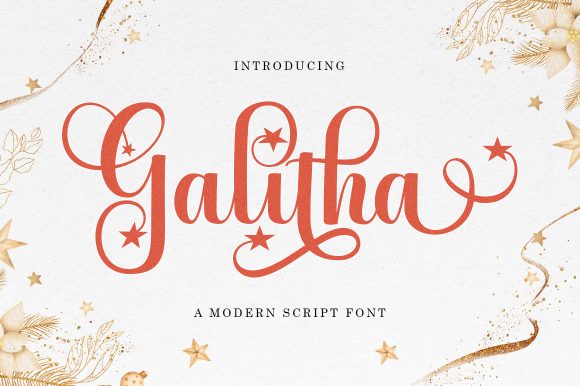
Introducing Galitha Font, the ultimate choice for script enthusiasts seeking a unique and captivating typeface. Created by the talented team at LetterFreshStudio, this adorable quirky handwritten font is guaranteed to infuse your designs with an irresistible touch of joy.
With Galitha Font, your creativity knows no bounds. Its playful style will effortlessly breathe life into your projects, making them stand out from the crowd. Whether you're designing beautiful stationary art, eye-catching social media posts, or any other creative endeavor, Galitha Font is the perfect companion to bring your vision to life.
Immerse yourself in the whimsical world of Galitha Font and watch as your designs come alive. Its carefully crafted curves and strokes exude a sense of warmth and friendliness, instantly connecting with your audience on a personal level.
Capture attention and evoke emotions with Galitha Font's unique charm. Let its organic and handwritten feel transport your viewers to a place of imagination and wonder. Each character tells a story, adding depth and personality to your typography.
Galitha Font is not just a typeface; it's a tool that empowers you to express your creativity with confidence. Its versatility allows it to adapt seamlessly to various design projects, whether you're aiming for a casual and laid-back vibe or a more elegant and sophisticated aesthetic.
Stand out in the digital landscape with Galitha Font's captivating appeal. Its authenticity and originality will instantly grab attention and leave a lasting impression. Your designs will become a visual delight that draws users in and keeps them engaged.
Incorporating Galitha Font into your collection means embracing a world of endless possibilities. Let your imagination soar as you explore its countless applications in branding, logo design, packaging, invitations, and beyond. With Galitha Font, every project becomes an opportunity to create something truly extraordinary.